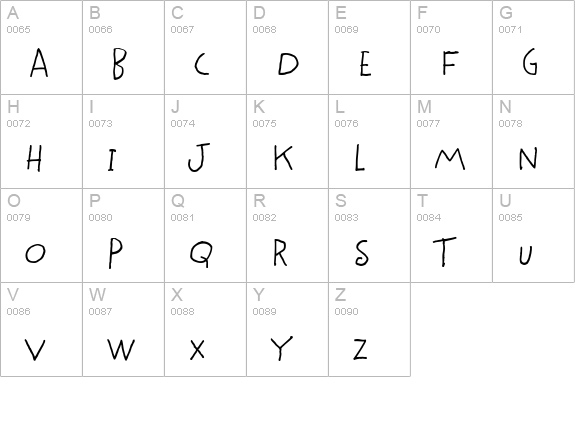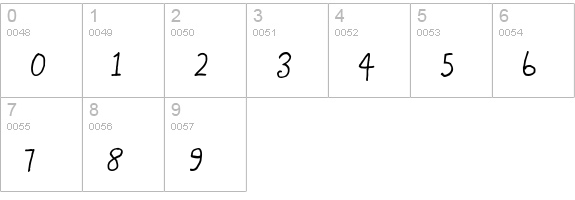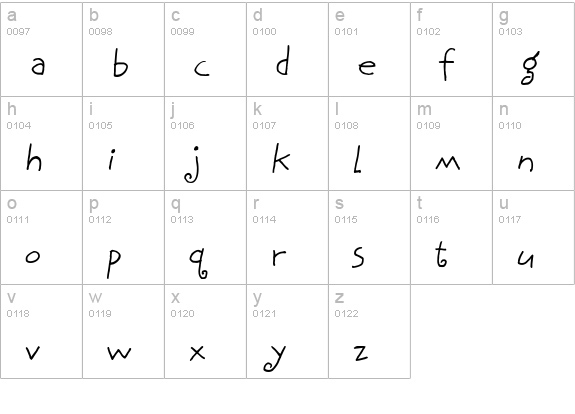
BethsCuteHmkBold is a charming and whimsical font that adds a playful touch to any project. This font features bold, hand-drawn letters with cute and quirky details that make it perfect for invitations, greeting cards, posters, and more. The rounded edges and slightly uneven lines give BethsCuteHmkBold a friendly and approachable feel. Best of all, BethsCuteHmkBold is completely free to download at FontsMarket.com. Whether you're a professional designer looking to add a touch of whimsy to your work or someone looking to create personalized projects at home, BethsCuteHmkBold is a fantastic choice. Download this delightful font today and let your creativity shine!